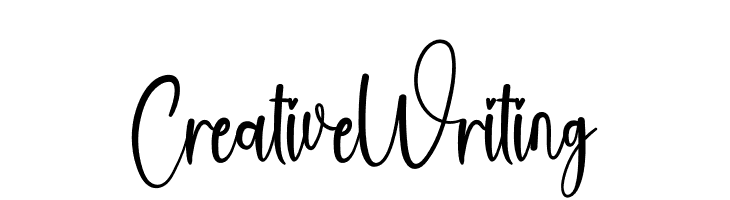
A bold, futuristic font with a glitch effect, ideal for modern and tech-themed designs.
A bold, playful font with dynamic strokes and a modern, artistic flair.
A playful, ink-splatter-inspired font with a dynamic, dotted design.
A bold, textured decorative font with a hand-carved appearance.
A playful, casual handwritten font with smooth, rounded strokes.
A bold, playful font with thick, rounded characters and a retro vibe.
A playful, comic-style font with rounded, bold characters and a hand-drawn feel.
A bold, impactful font with thick, uniform strokes and slightly condensed characters.
A bold, playful hand-drawn font with a lively and energetic style.
A playful, hand-drawn font with bold, textured characters.